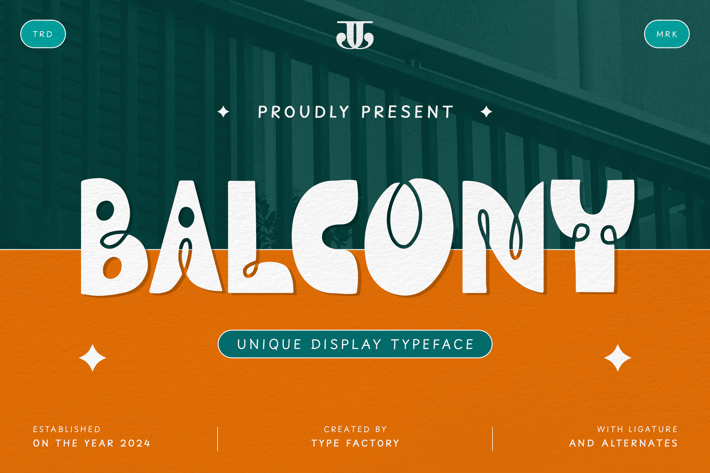
Balcony - Unique Display Typeface
Balcony is a unique display typeface that captivates with its distinctive style and bold character. Designed to make a strong visual impact, Balcony features artistic elements and unconventional shapes that set it apart from traditional typefaces. Ideal for eye-catching headlines, posters, and creative branding, Balcony adds a touch of originality and flair to any project. Its versatile design ensures that it can be used across various media, bringing a dynamic and modern feel to your work.
– Lowercase
– Ligature